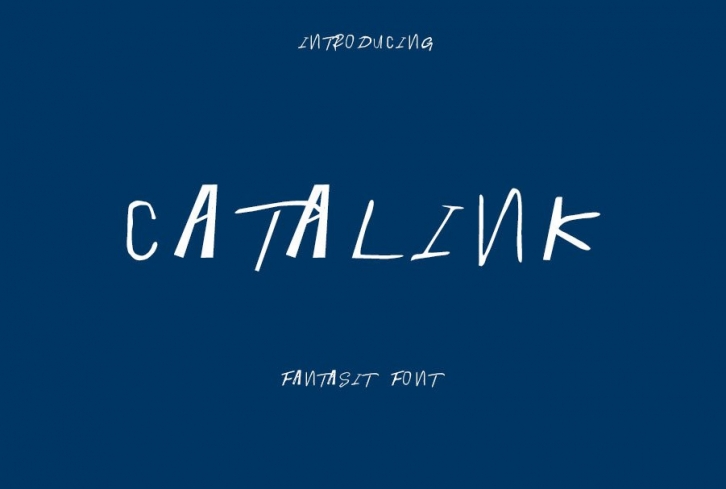
Catalink is a quirky and asymmetrical handwritten font that can be used for all chalkboard quotes or teaching material! Its authentic look will add a personal and realistic feel to your designs.